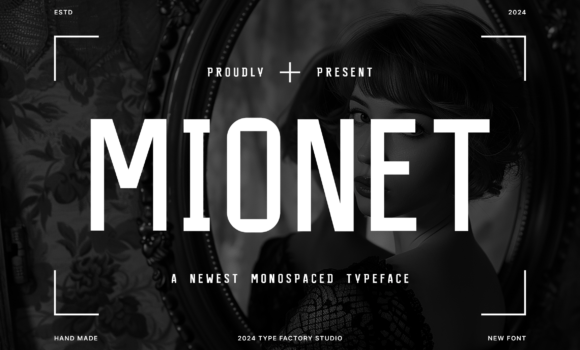
mionet
Mionet Font - Featured Image
Mionet Font – Free Download Introduction to Mionet Font Mionet is a monospaced sans serif typeface built with consistent character width and clean geometric construction. 📸 Preview Gallery 6 images 📌 Product Name Mionet Font 👤 Author TypeFactory 📂 Category